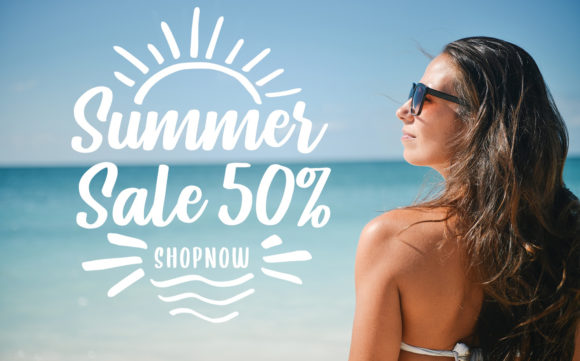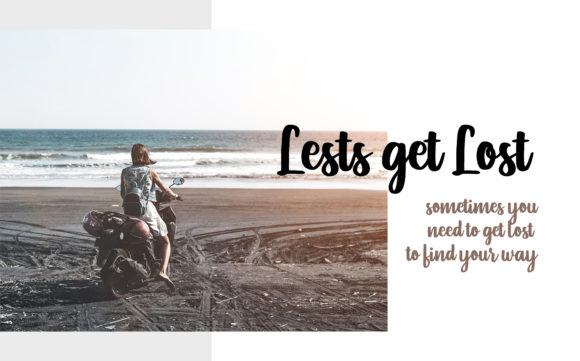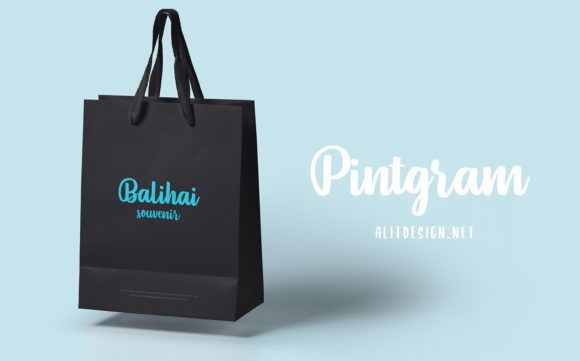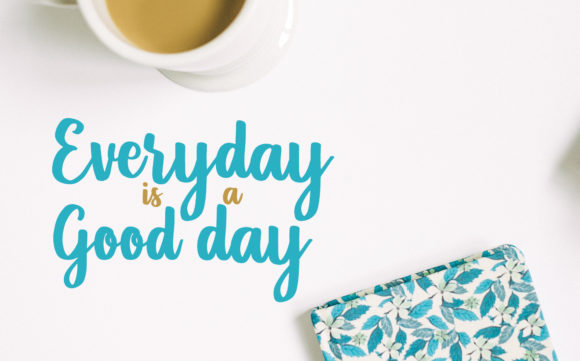
Introduction to Pintgram Font
You’re in the middle of brainstorming a creative project, and you’re stuck on the perfect font to bring your idea to life. The right font can make all the difference in setting the tone and capturing the essence of your design. That’s where the Pintgram Font comes in – an incredibly light and sweet script that will add a level of cuteness to your next design idea.
Falling in love with its effortless beauty, you can’t help but wonder how you ever lived without it. As a valuable resource for designers, the Pintgram Font is a high-quality addition to any design arsenal. Whether you’re working on a free download or a paid project, this font is sure to bring a touch of whimsy and charm to your work. With a transparent background, the possibilities are endless, and we can’t wait to dive in and explore all that this lovely font has to offer.
Pintgram Font
- High-quality, professional design resource ideal for creative projects.
- Features a transparent background, allowing for seamless integration with any design.
- Comes in a range of sizes, from 10pt to 100pt, making it versatile for various design applications.
- Resolution: 300 DPI, ensuring crisp and clear typography in print and digital formats.
- Unique characteristic: Custom-designed with a modern aesthetic, making it perfect for branding and visual identity projects.
- Perfect for designers, artists, and creatives looking for a high-quality, free design resource for their next project.
Honest Review: Pintgram Font
As a designer, I’m always on the lookout for new and exciting design resources to elevate my creative projects. Recently, I came across the Pintgram Font, and I must say, it’s been a game-changer.
- ✨ High-quality design: The Pintgram Font is crisp, clean, and well-designed, making it perfect for a variety of creative projects.
- ✨ Transparent background: The font’s transparent background allows for seamless integration with any design element, giving you complete control over your design.
- ⚠️ Limited font styles: While the Pintgram Font is well-designed, it’s limited to a single style, which may not be suitable for projects that require a variety of font styles.
- ⚠️ No customization options: The font is available for free download, but it doesn’t come with any customization options, which may limit its versatility.
Overall, I’m impressed with the Pintgram Font, and I would highly recommend it to designers looking for a high-quality, free design resource. With its transparent background and crisp design, it’s perfect for a variety of creative projects. Just be aware of its limitations, and you’ll be golden.
Pintgram Font
Tips for Getting the Most Out of Pintgram Font
Use Pintgram Font for creative projects that require a high-quality, unique font.
Combine Pintgram Font with transparent backgrounds for a modern and sleek design.
Common Use Cases for Pintgram Font
Use Pintgram Font for social media graphics, blog posts, and other digital content.
Apply Pintgram Font to your branding materials, such as business cards and brochures.